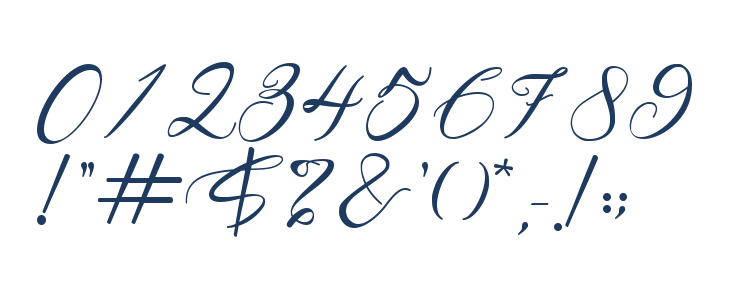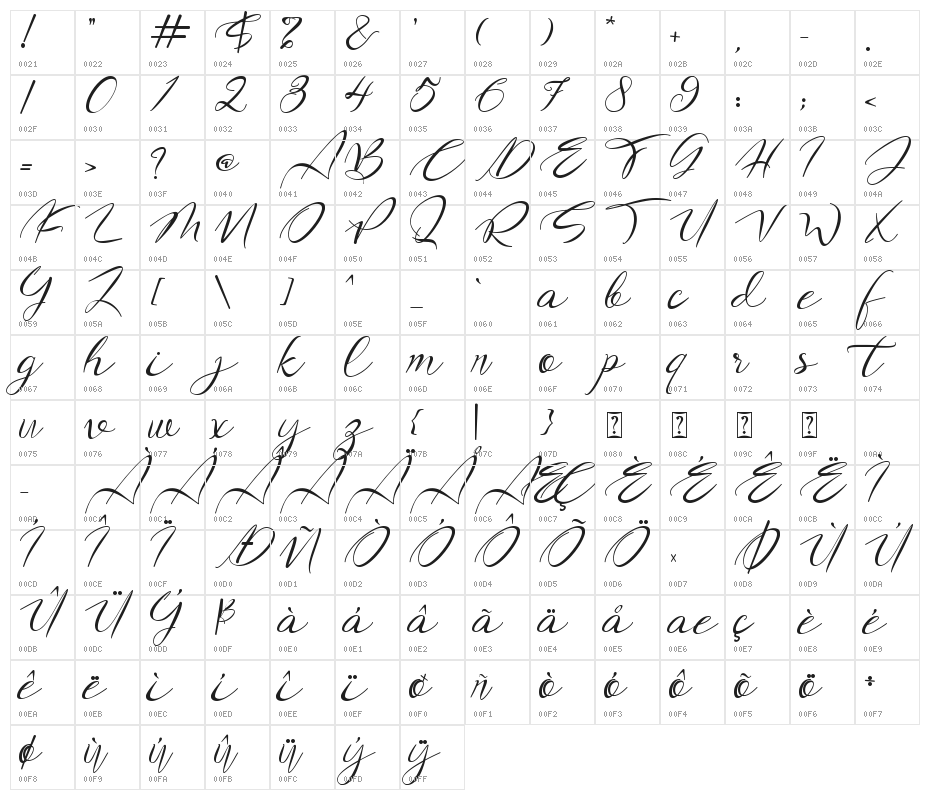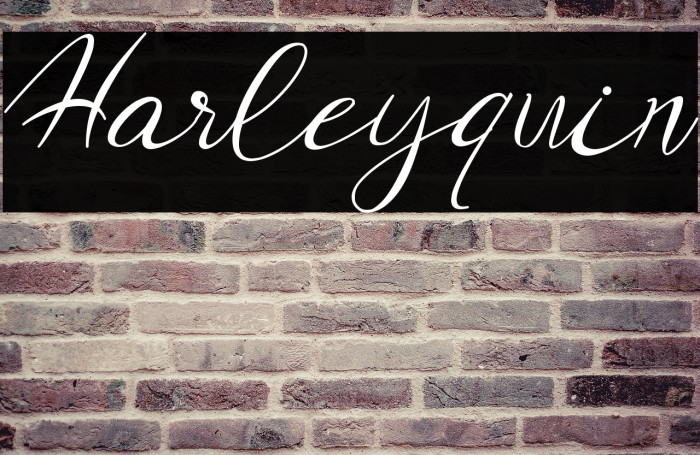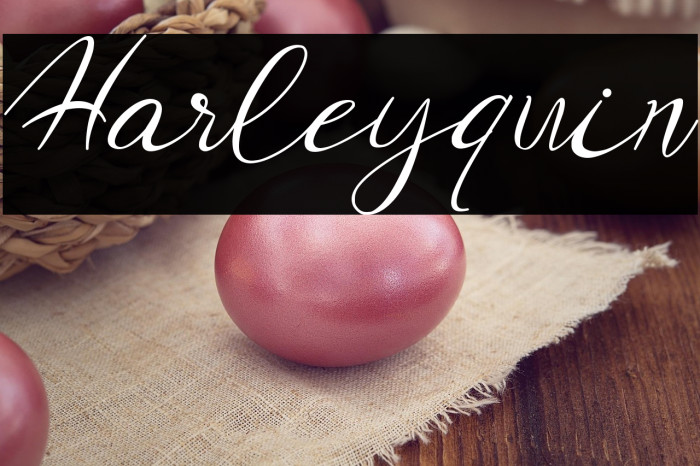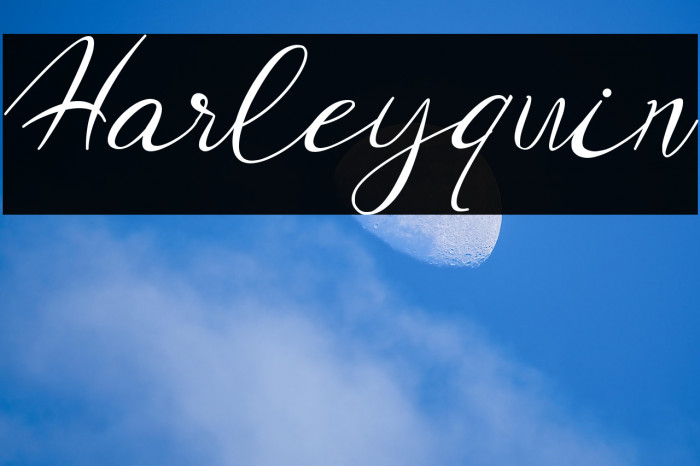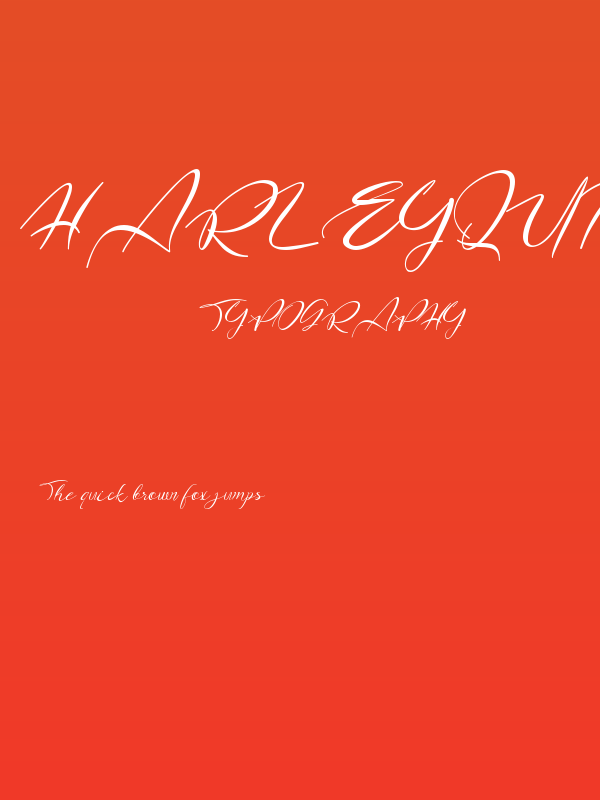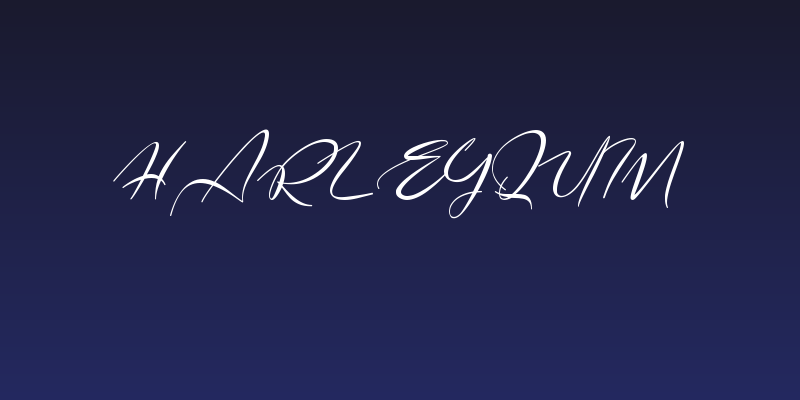
Harleyquin Font
Harleyquin Description
This elegant script font features a flowing, cursive style with a sophisticated flair. The characters are interconnected, creating a seamless and fluid appearance. The uppercase letters are ornate and slightly larger, while the lowercase letters maintain a consistent rhythm and balance. The numerals and special characters are designed to complement the overall aesthetic, adding a touch of refinement. The strokes vary in thickness, providing a dynamic contrast that enhances readability while maintaining an artistic touch. This font is perfect for projects that require a touch of elegance and sophistication.
| Use Case | Logos, Invitations, Decorative Headlines |
| Proposed Projects | Ideal for wedding invitations, elegant branding, personal stationery, and decorative headlines. |